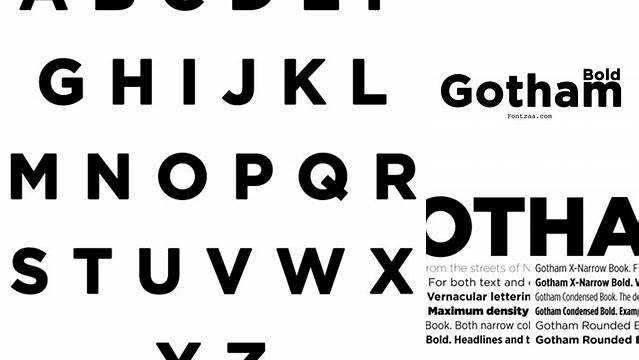
Are you looking to download Gotham Bold font for free? You've landed in the right place, my friends! Gotham Bold is a popular and versatile sans-serif typeface that's been a go-to choice for designers and creatives. Whether you're working on a website, a poster, or a presentation, the Gotham font family is sure to grab attention. I'll provide you with all the details about the Gotham Bold font, including where to download it legally and safely and also explain how to use it effectively. This guide will cover everything you need to know to get this fantastic font into your design toolkit. Let's dive in, shall we?
What is Gotham Bold Font?
First things first, what makes Gotham Bold so special? Well, the Gotham font is a geometric sans-serif typeface designed by Tobias Frere-Jones and released by Hoefler & Frere-Jones in 2000. Its clean lines, strong presence, and geometric design have made it a modern classic. Gotham Bold, in particular, is one of the most recognizable weights due to its heavy, impactful look. It's perfect for headlines, titles, and any design element where you need to make a bold statement. The font's design is inspired by the architectural lettering found in mid-20th-century America, lending it a timeless yet contemporary appeal. The Gotham family includes various weights, from light to black, allowing for great flexibility in your designs. It is often seen in branding materials, advertising campaigns, and editorial layouts. The simplicity and clarity of Gotham Bold also make it highly readable, even at larger sizes. Its consistent style and form have made it a favorite among designers seeking to create a sophisticated and professional look. The versatility of Gotham Bold extends to various applications, from corporate logos to web design and user interfaces. Because of these features, Gotham Bold's popularity is understandable. It's one of those fonts that just works, no matter the project.
Key Features of Gotham Bold
Let's take a closer look at what makes Gotham Bold so effective. Here are a few key features that you should know about:
- Strong Visual Impact: Gotham Bold's thick strokes and solid appearance make it highly visible and eye-catching.
- Geometric Design: The font's clean, geometric shapes give it a modern and balanced feel.
- High Readability: Despite its boldness, Gotham Bold remains highly readable, even in larger sizes.
- Versatility: Suitable for a wide range of applications, from headlines to body text (when used strategically).
- Modern Appeal: It has a contemporary look that easily fits with current design trends.
Why Choose Gotham Bold?
Why choose Gotham Bold over other fonts? Simple! The unique combination of boldness, readability, and versatility makes it an ideal choice for a whole bunch of projects. If you're looking for a font that grabs attention without sacrificing clarity, Gotham Bold is a winner. The geometric design gives your designs a structured and professional look, whether you're working on a branding project, a website, or print media. Its modern style ensures your work looks current and up-to-date. If you are building a brand, Gotham Bold can establish a strong visual identity. For headlines, this font commands attention, and for body text, it adds a touch of elegance. Overall, it's a highly flexible font that can be used in various contexts. Whether it's an advertisement, a website, or a presentation, Gotham Bold delivers a powerful and memorable design that makes an impression.
How to Use Gotham Bold in Your Designs
So, you've got the font – awesome! Now, how do you use Gotham Bold effectively? Here are some tips to make the most of this powerful typeface:
Best Practices for Using Gotham Bold
- Headlines and Titles: Gotham Bold shines in headlines and titles. Use it to grab attention and make a strong statement. The boldness of the font ensures that your titles will be visible and impactful. Its clean lines and geometric design make it an ideal choice for creating a modern and professional look in your headlines.